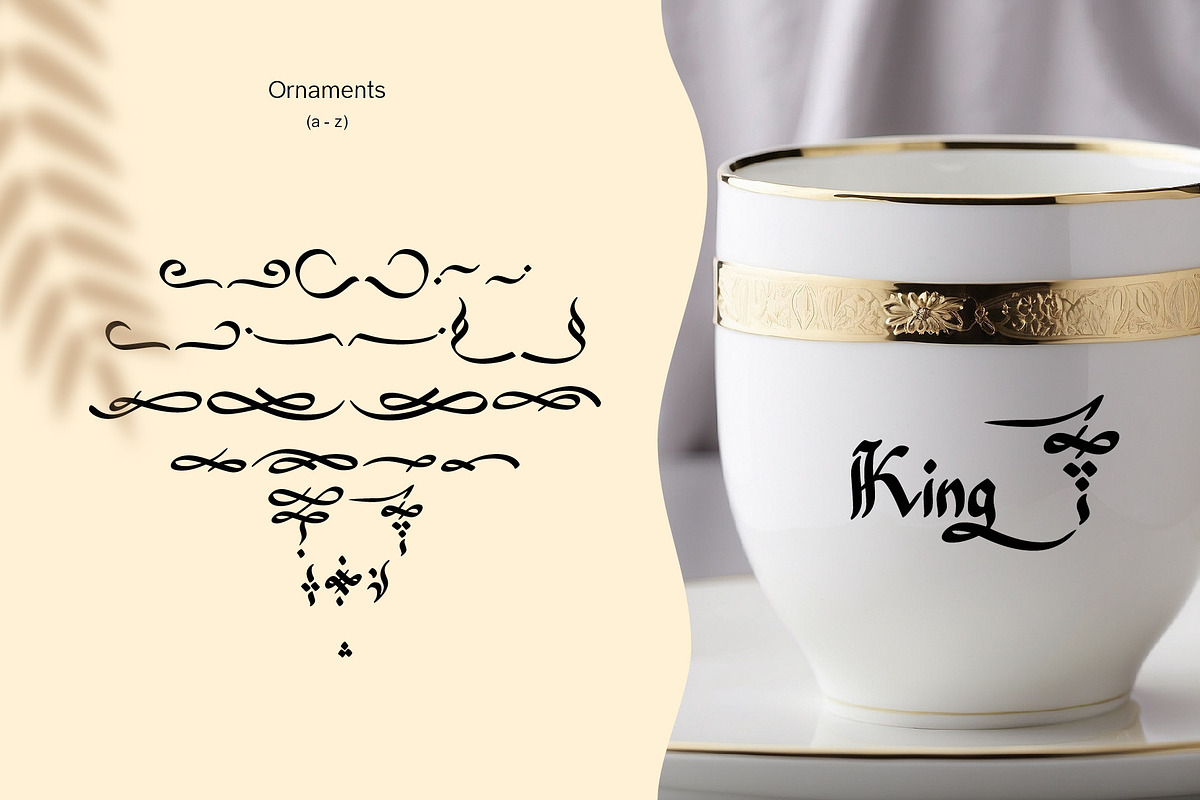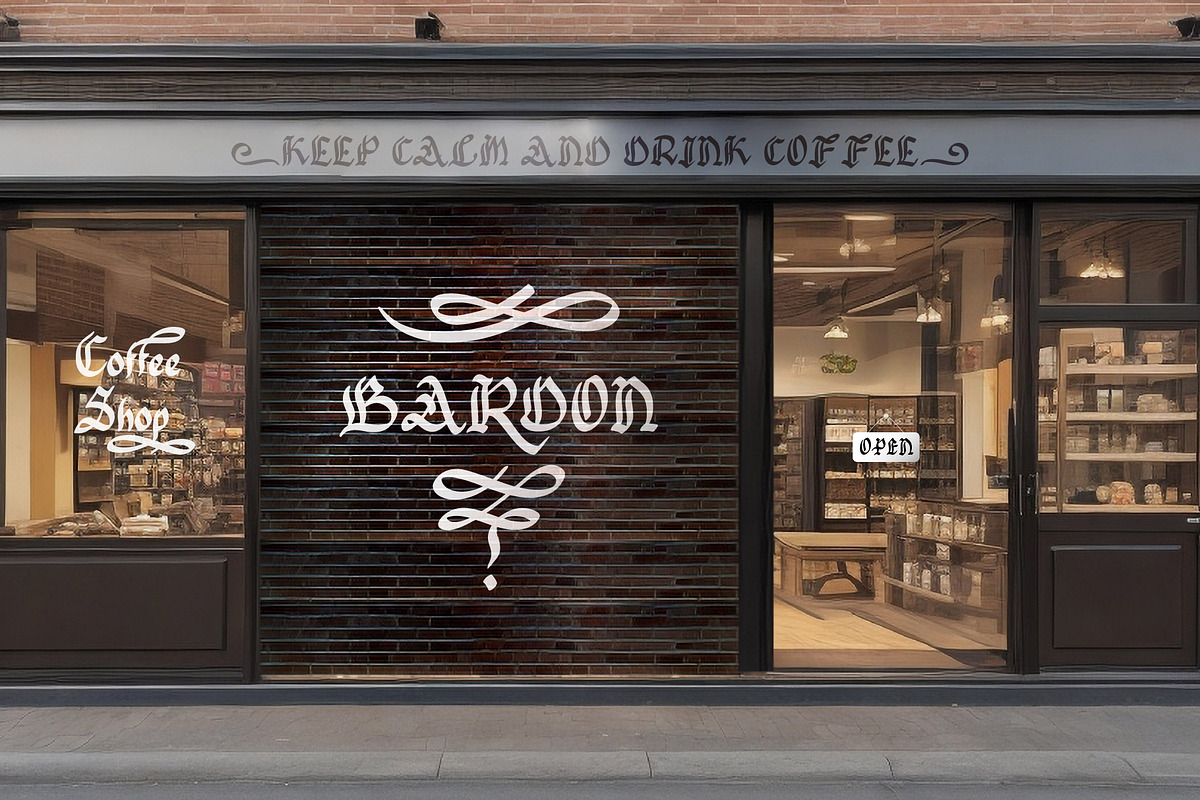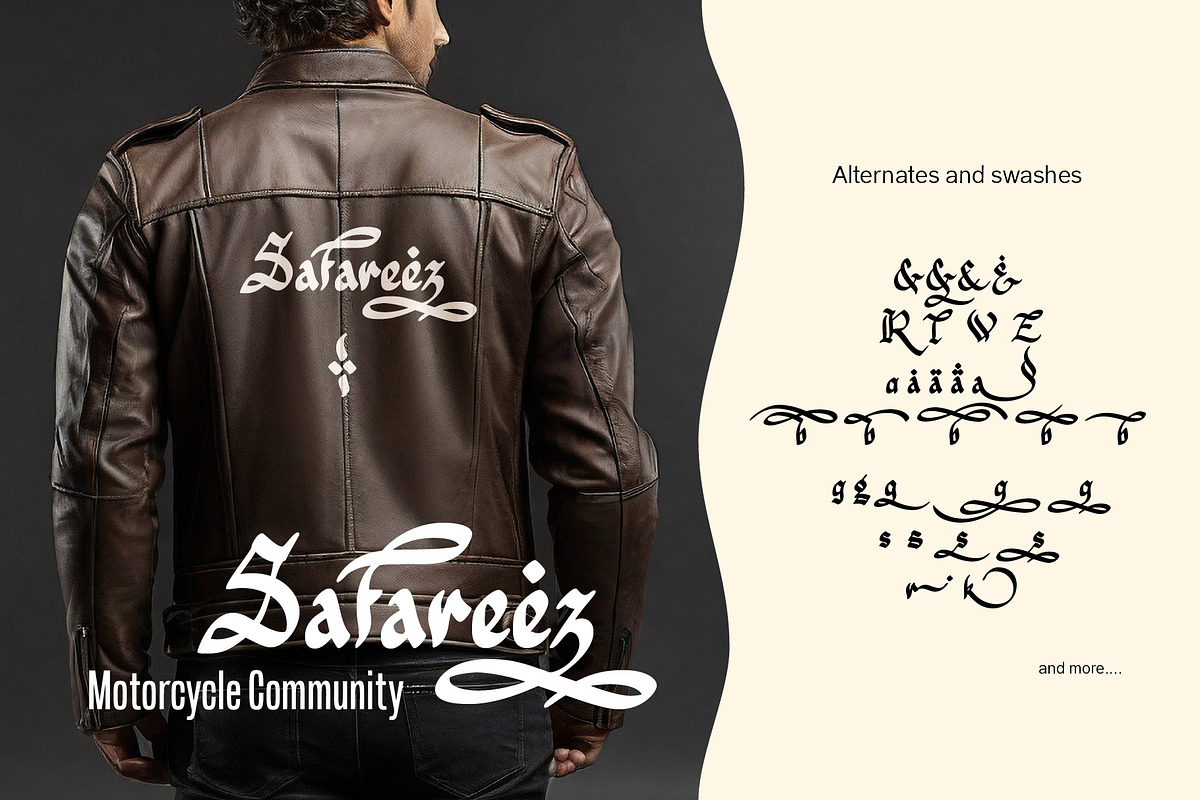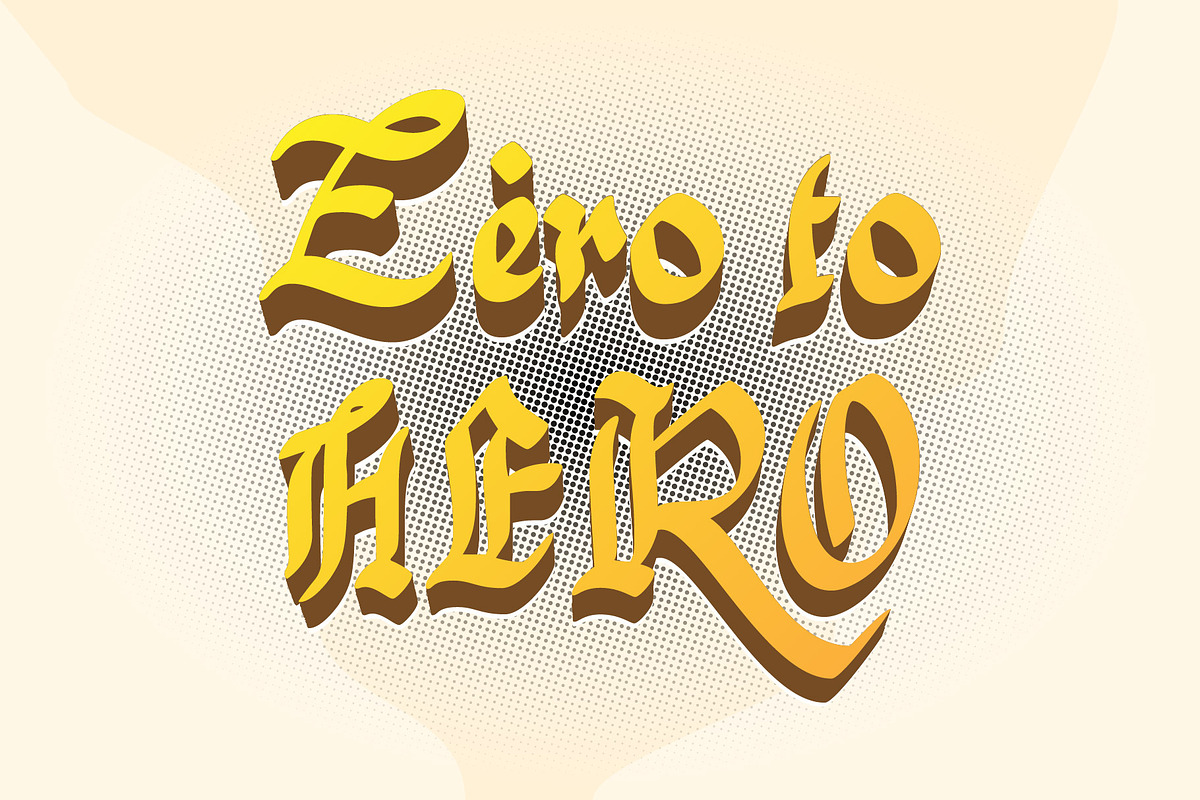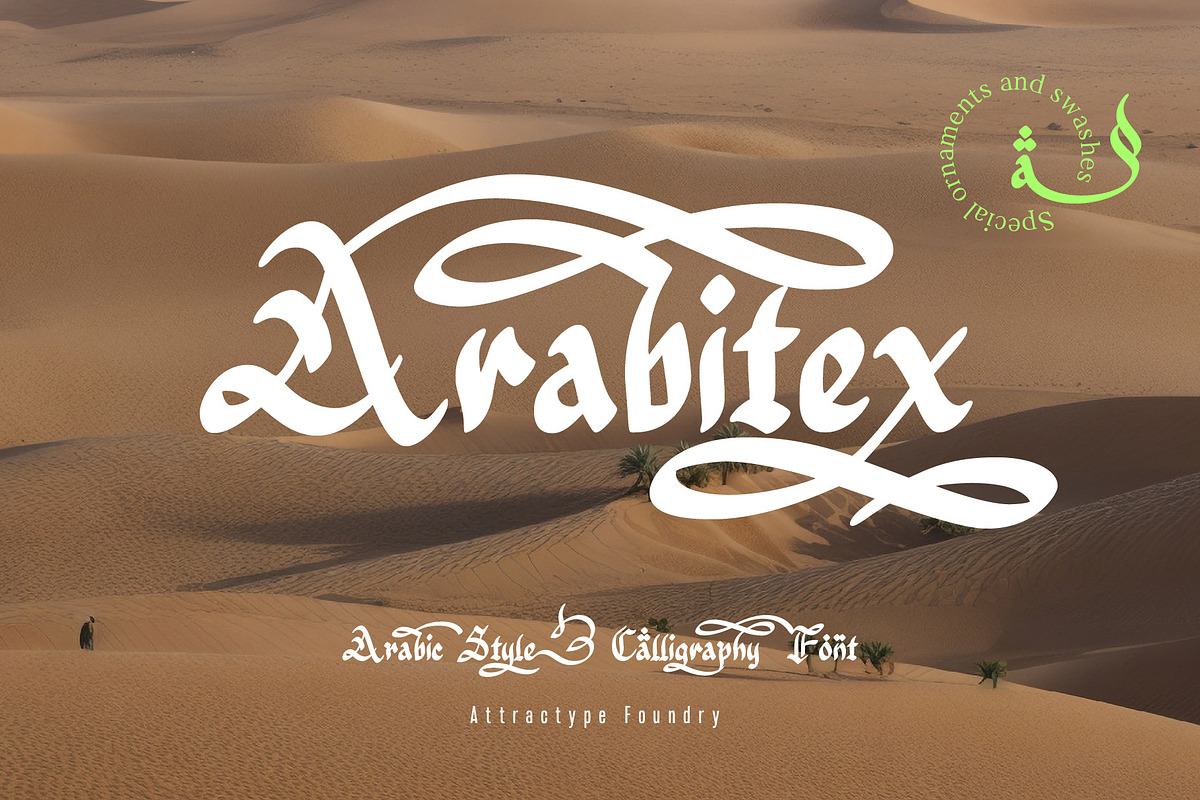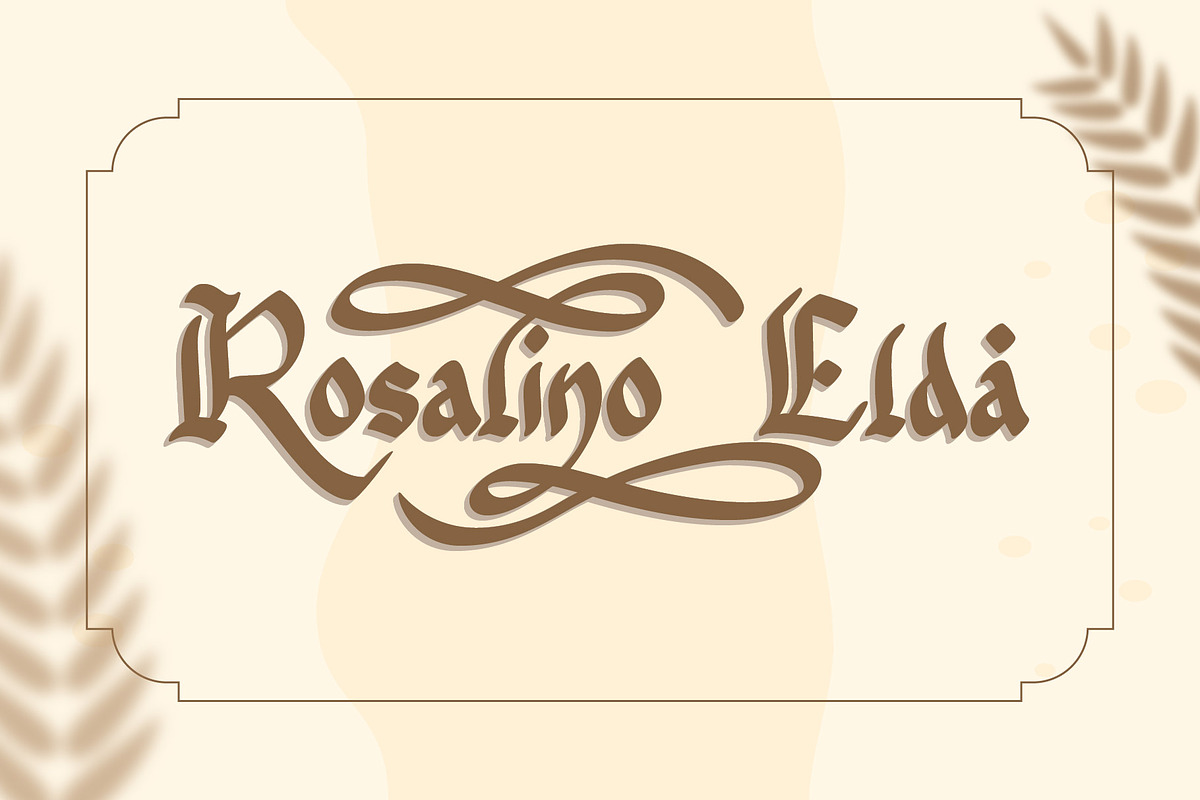
Arabitex Arabic Style Calligraphy
Arabitex is an Arabic style calligraphy font while maintaining the original handwritten form. Suitable for designing brands, greeting cards, wedding invitations, titles, magazine covers and other designs that require beautiful bold fonts and many choices of letter styles.
This font includes alternative letters, swashes, and ornaments.